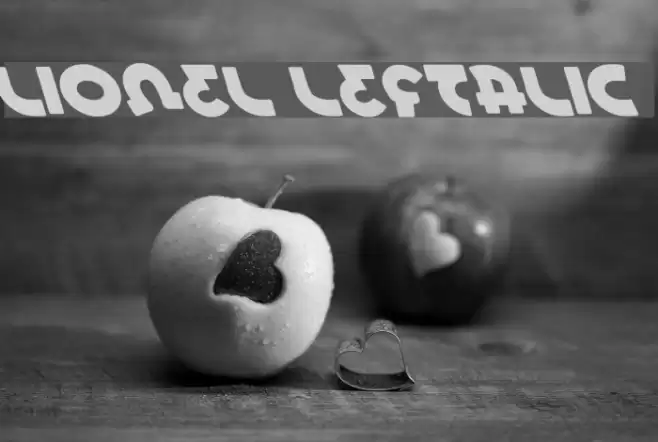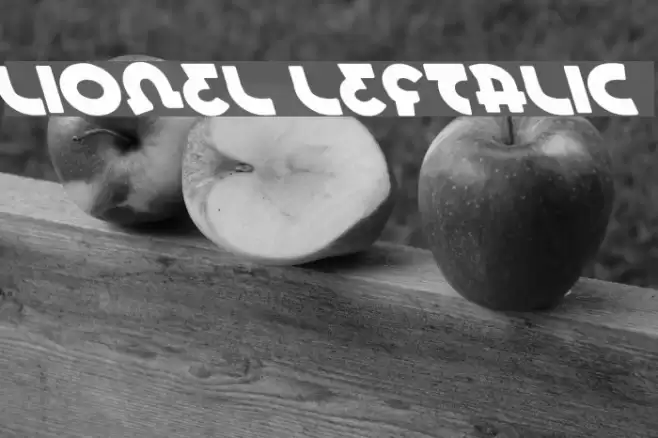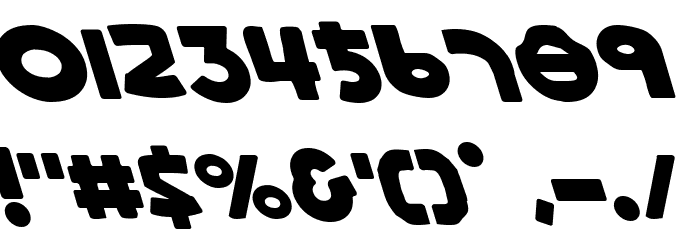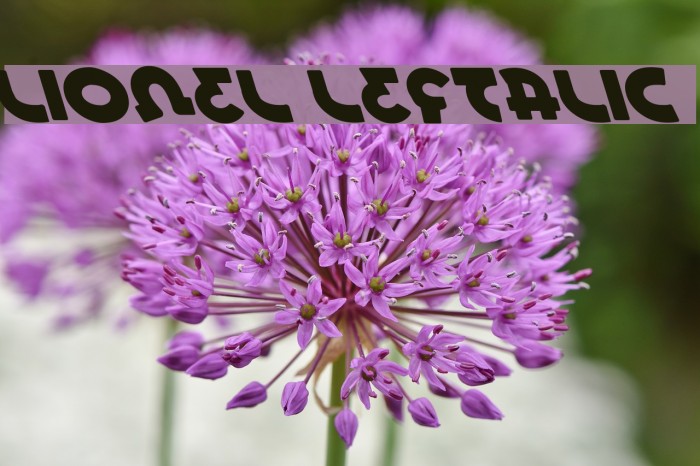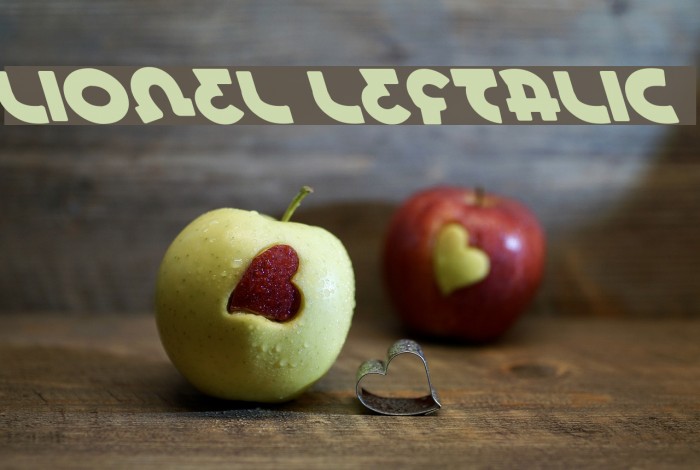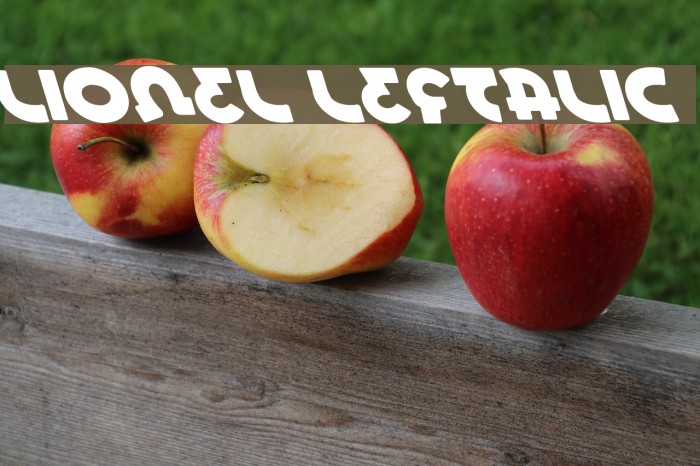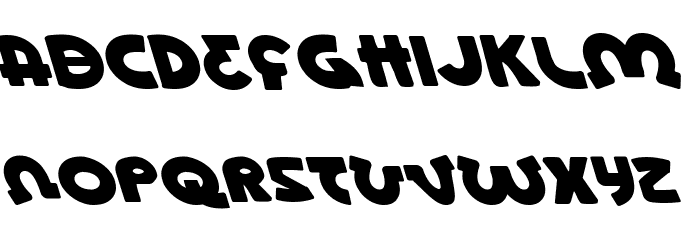
Lionel Leftalic Font
Lionel Leftalic Description
This font features a bold and playful style with a distinct leftward slant, giving it a dynamic and energetic appearance. The characters are rounded and thick, with a consistent stroke width that adds to its boldness. The uppercase and lowercase letters maintain a uniform design, enhancing readability while still retaining a unique flair. The numbers and special characters are crafted to match the overall style, ensuring a cohesive look across all text elements. This font's bold and quirky nature makes it ideal for projects that require a fun and engaging visual impact.
A bold, playful font with a leftward slant and rounded characters from Crazy fonts.
- Proposed Projects: Ideal for children's books, playful branding, posters, and creative advertisements.
- Overall Style: Playful, Modern